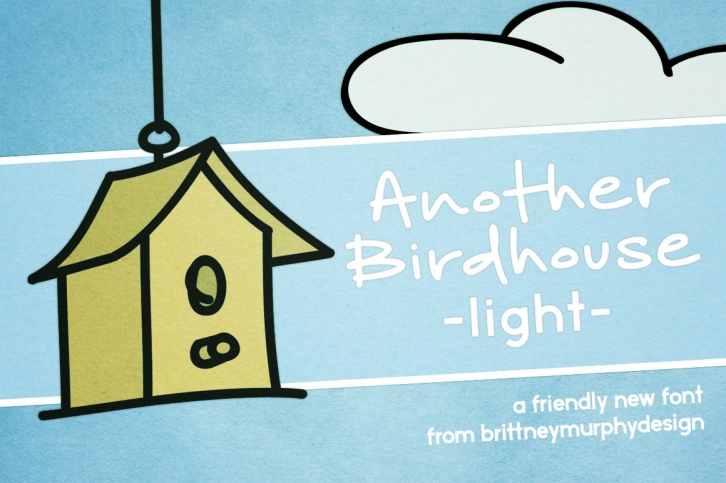
Another Birdhouse Light is a friendly, handwritten font. Great for cards!
It has 343 characters, with extended Latin characters, accents and currency symbols.